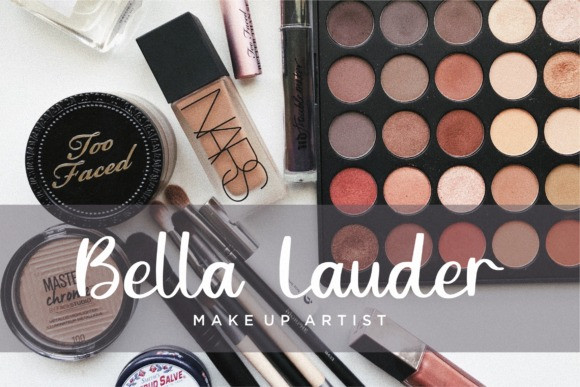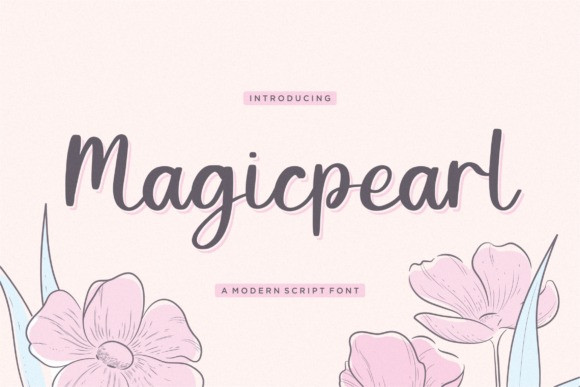
Magicpearl Font
Magicpearl Script Font is a chic, refined script font that emanates sophistication and elegance. Its stylish alternates and ligatures make this font the perfect match for any project.